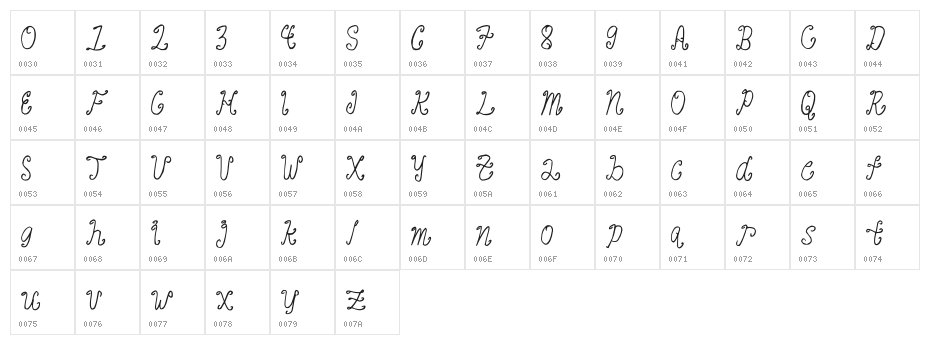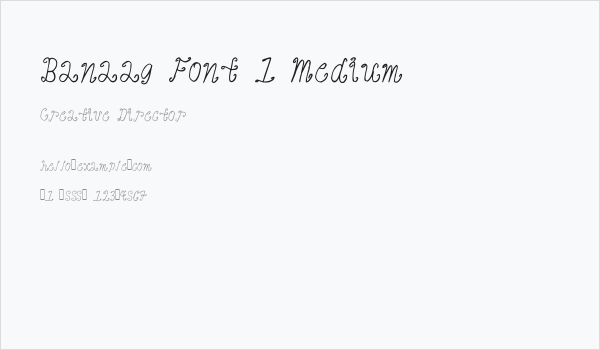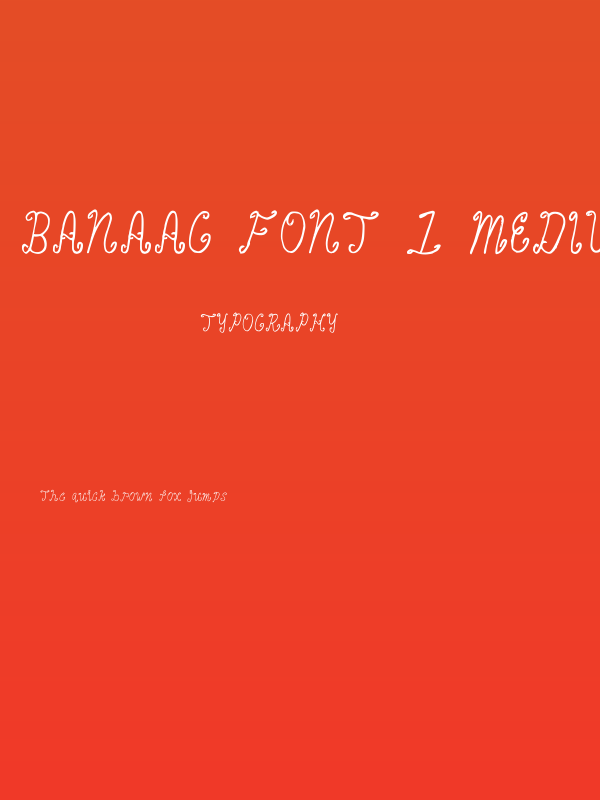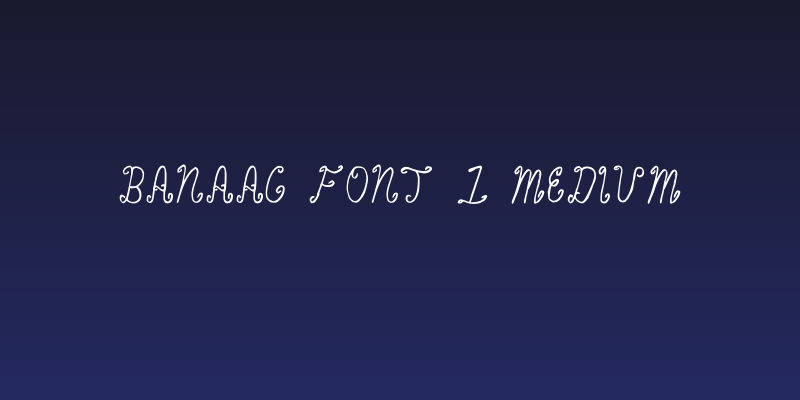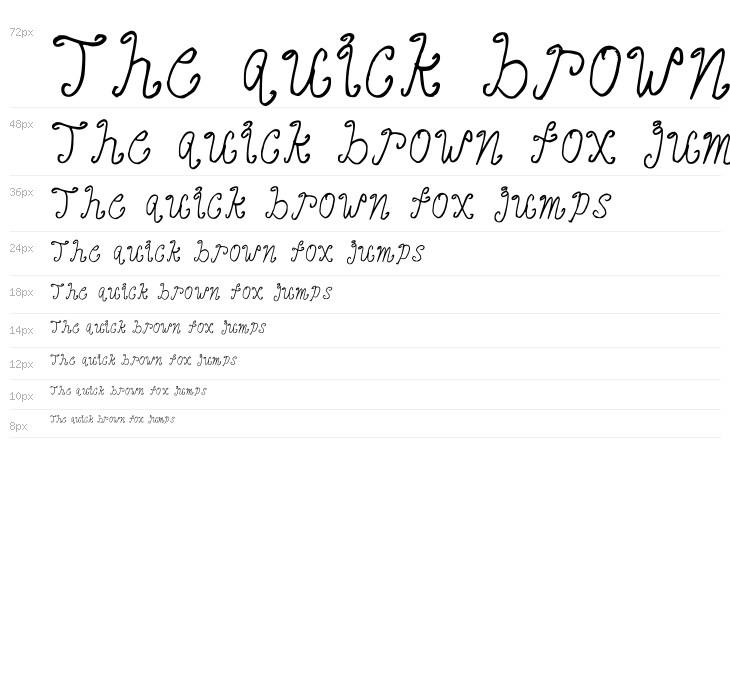
Banaag Font 1 Medium Font
Banaag Font 1 Medium Description
This font features a whimsical and decorative style with elegant, flowing curves and loops. Each character is uniquely crafted with a playful yet sophisticated touch, making it stand out with its artistic flair. The uppercase letters are bold and prominent, while the lowercase letters maintain a consistent style with slightly more subtle curves. The numbers are equally stylized, matching the overall theme of the font. Special characters are designed to complement the letters, adding to the font's cohesive appearance. The overall design is both eye-catching and versatile, suitable for a variety of creative applications.
| Use Case | Logos, Invitations, Creative projects |
| Proposed Projects | Ideal for invitations, greeting cards, logos, and creative branding projects. |